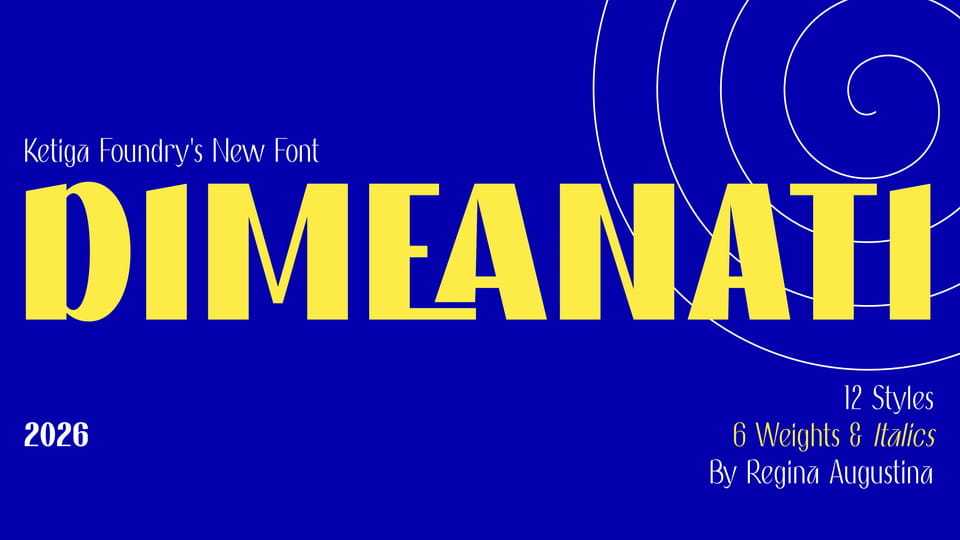
Download Dimeanati font, an editorial serif typeface meticulously crafted for contemporary publishing and sophisticated brand expression. Characterized by its high-contrast construction and sculpted details, Dimeanati achieves a perfect balance between clarity and character.
Designer: Ketiga Foundry